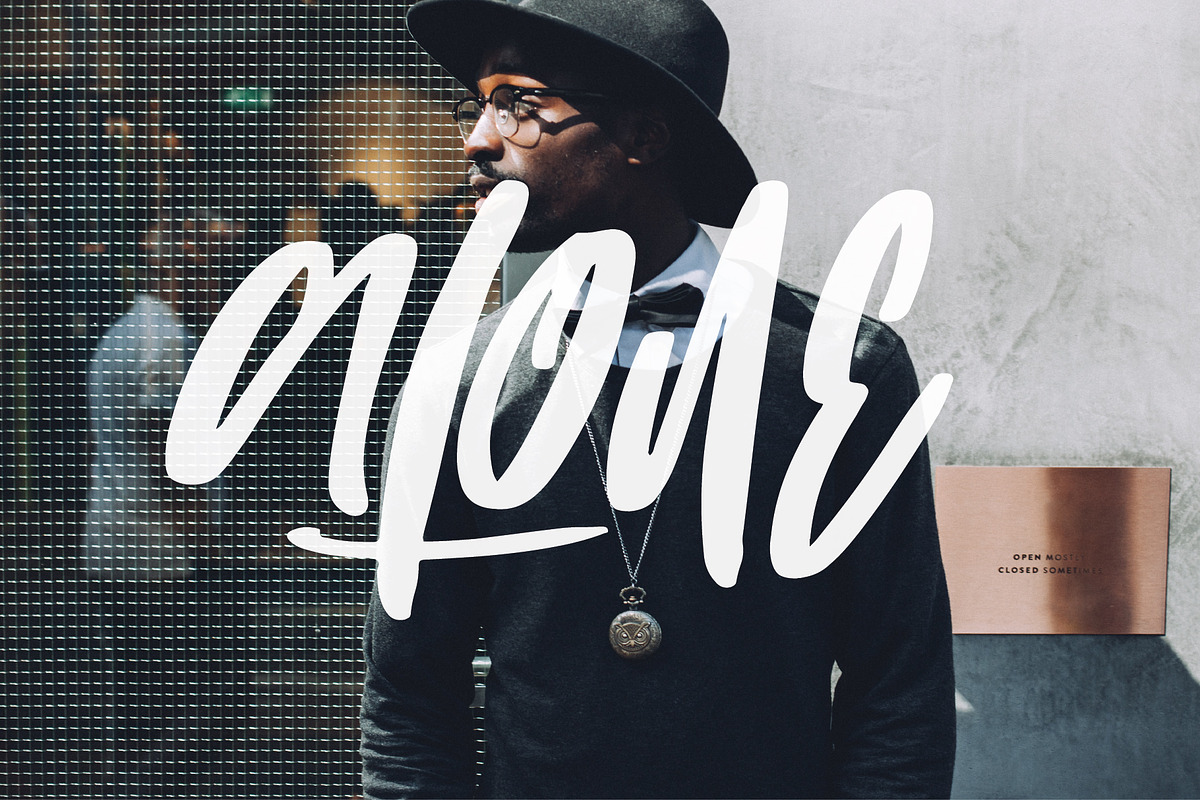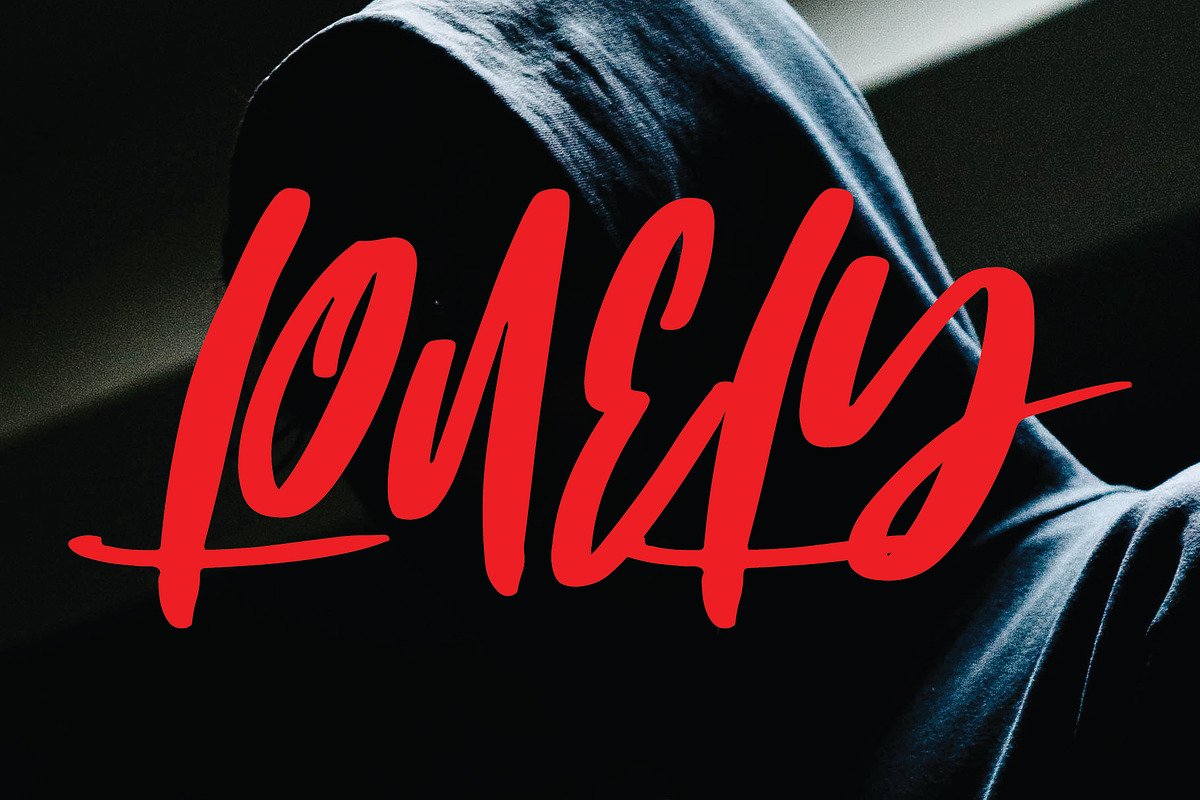
ALONE FONT
Alone Font by Goodigital13 is a font selected for branding, posters, packaging, typography.
Why ALONE FONT is worth a look
ALONE FONT by Mariyana fits naturally into Branding, posters, packaging, typography.